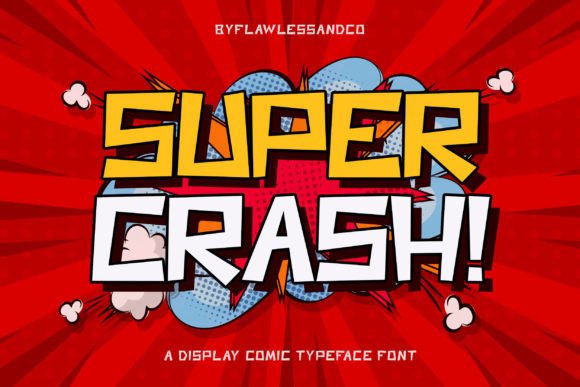
Welcome to the world of Super Crash, a display font that will unleash your creativity and transport your designs into a realm of enchantment. Crafted by the visionary minds at Flawless and Co., Super Crash is a font like no other, brimming with modern flair and a touch of whimsical charm.
Fashionistas, rejoice! Super Crash is your ultimate weapon in the quest for eye-catching designs. Its playful and stylish curves will add a touch of pizzazz to your apparel, accessories, and branding materials. Imagine your designs adorned with Super Crash, captivating your audience and leaving an indelible impression.
But Super Crash is not just for the fashion-forward; it's a font that transcends boundaries and genres. Its versatility knows no limits, making it the perfect choice for an array of projects, from whimsical illustrations to eye-catching marketing campaigns. Unleash your imagination and let Super Crash guide you into a realm of creative possibilities.
With Super Crash, you'll embark on a design journey like never before. Its enchanting style will ensnare your audience, immersing them in a world of magic and wonder. Your words will dance off the page, each letter a work of art, captivating and alluring.
Don't settle for ordinary fonts that blend into the background. Dare to be different, to stand out from the crowd. Super Crash is the key to unlocking your creative potential, transforming your designs into masterpieces that will leave a lasting impression.
Join the Super Crash revolution today and elevate your designs to new heights. Let your creativity soar as you immerse yourself in a world of boundless possibilities. The time for ordinary fonts is over; it's time to embrace the extraordinary with Super Crash!